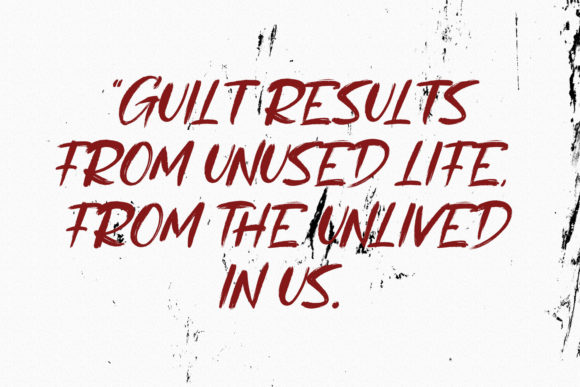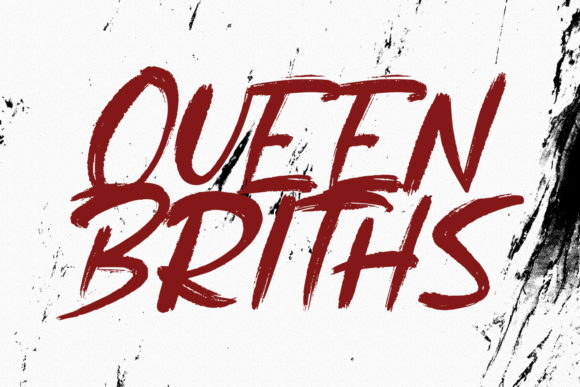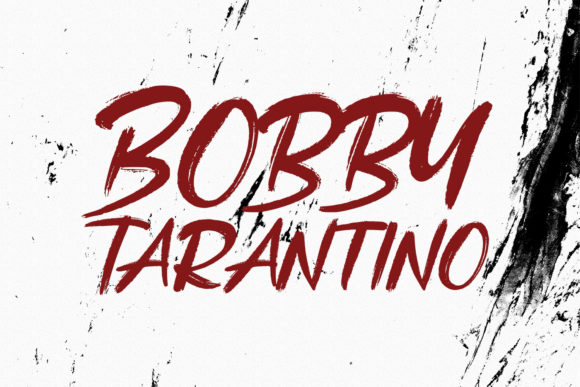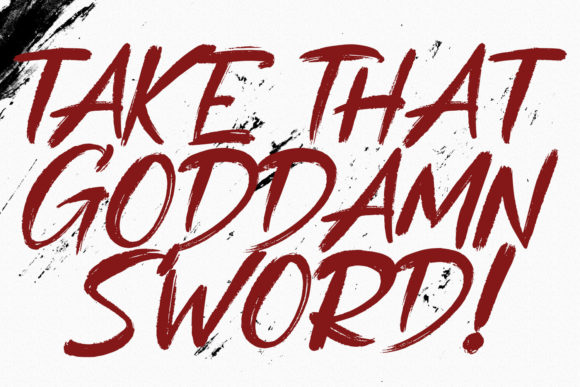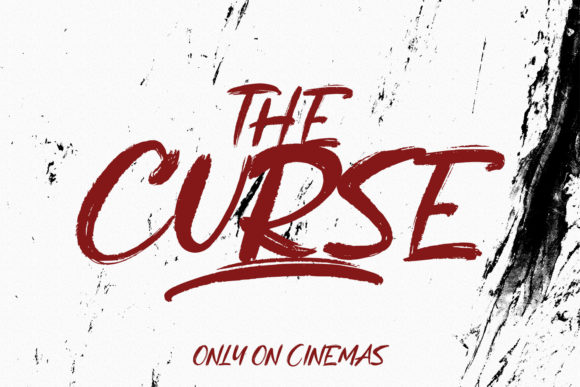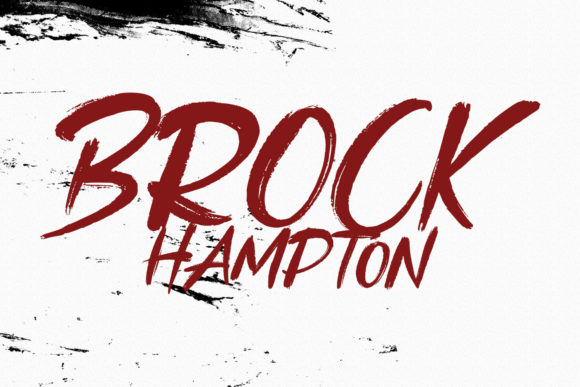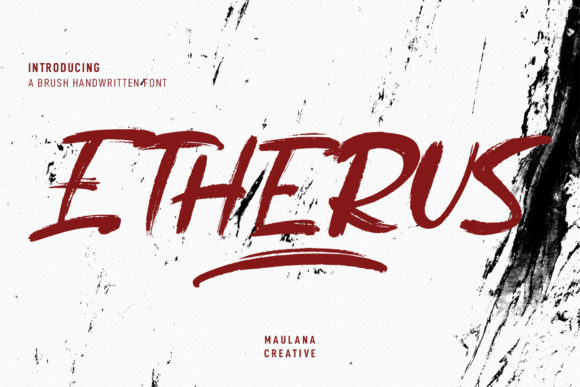
Introducing Etherus Font: Unleash Your Creativity with this Casual Brushed Display Font
Are you a designer or crafter looking for a unique and playful font to elevate your creative projects? Look no further than Etherus Font, a casual brushed display font that’s sure to add a touch of personality to your designs. With its medium brush strokes, fun characters, ligatures, and alternates, Etherus Font offers endless possibilities for creative expression.
What Makes Etherus Font Special?
Etherus Font is a one-of-a-kind font that’s perfect for designers and crafters who want to add a personal touch to their work. Here are some of its standout features:
• Medium Brush Strokes: Etherus Font features medium brush strokes that give it a smooth, hand-painted look. This makes it perfect for designs that require a personal and artistic touch.
• Fun Characters: The font includes a range of fun and quirky characters that are sure to add some personality to your designs.
• Ligatures and Alternates: Etherus Font also features ligatures and alternates, which allow you to create unique and interesting text combinations.
Uses for Etherus Font
Etherus Font is incredibly versatile and can be used for a wide range of design projects, including:
• Logos and Branding: Use Etherus Font to create a unique and memorable logo that reflects your brand’s personality.
• Posters and Flyers: Add a touch of personality to your posters and flyers with Etherus Font’s fun and playful characters.
• Social Media Graphics: Use Etherus Font to create eye-catching social media graphics that stand out from the crowd.
• Invitations and Cards: Create beautiful and unique invitations and cards with Etherus Font’s elegant and artistic feel.
Why Choose Etherus Font?
With so many fonts available, why choose Etherus Font? Here are just a few reasons:
• Unique and Playful: Etherus Font is a one-of-a-kind font that’s sure to add a touch of personality to your designs.
• High-Quality: Etherus Font is a high-quality font that’s designed to produce crisp and clear text at any size.
Tips for Using Etherus Font
Here are a few tips for getting the most out of Etherus Font:
• Experiment with Different Sizes: Etherus Font looks great at a range of sizes, so don’t be afraid to experiment and find the perfect size for your design.
• Play with Ligatures and Alternates: Use Etherus Font’s ligatures and alternates to create unique and interesting text combinations.
• Pair with Other Fonts: Etherus Font pairs well with a range of other fonts, so don’t be afraid to experiment and find the perfect combination for your design.
Etherus Font is a unique and playful font that’s perfect for designers and crafters who want to add a personal touch to their designs. With its medium brush strokes, fun characters, ligatures, and alternates, Etherus Font offers endless possibilities for creative expression. Whether you’re creating a logo, poster, or social media graphic, Etherus Font is sure to help you stand out from the crowd.